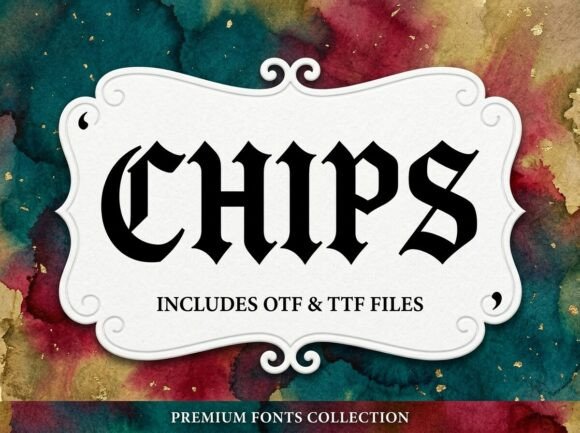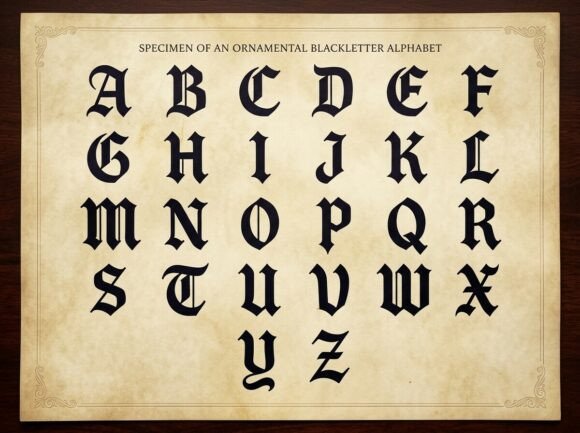
Place Your Bets on a Winning Design with Chips Font
In the world of typography, a good font can make all the difference in creating a lasting impression. For designers and crafters looking to add a touch of luxury and sophistication to their projects, Chips Font is a bold blackletter typeface that’s sure to deal a winning hand. With its unique blend of medieval flair and modern luxury gaming branding, Chips is the perfect choice for a variety of design applications.
The Characteristics of Chips Font
Chips Font boasts dense, high-contrast letterforms that exude a sense of confidence and drama. One of the standout features of this font is its rhythmic, diamond-shaped terminals, which add a touch of elegance and refinement to any design. The sharp, angular strokes bridge the gap between medieval calligraphy and modern luxury gaming branding, creating a truly unique and eye-catching visual identity.
A Font with a Strong Personality
Chips Font has a heavy structural weight that commands attention and demands to be noticed. Its commanding personality makes it the perfect choice for designers looking to create a bold and impactful design. Whether you’re working on an independent craft brewery identity, a boutique casino-themed logo, or a vintage streetwear label, Chips Font is sure to make a lasting impression.
Design Applications for Chips Font
So, what can you use Chips Font for? The possibilities are endless, but here are a few ideas to get you started:
- Independent Craft Brewery Identities: Chips Font is a great choice for craft breweries looking to create a unique and memorable brand identity. Its bold, attention-grabbing design is sure to stand out on labels, packaging, and marketing materials.
- Boutique Casino-Themed Logos: For casinos and gaming companies looking to create a luxurious and sophisticated brand image, Chips Font is a top contender. Its high-contrast letterforms and diamond-shaped terminals evoke the glamour and excitement of high-stakes gaming.
- Vintage Streetwear Labels: Chips Font’s bold, angular design makes it a great fit for vintage streetwear labels and fashion brands. Its unique blend of medieval and modern elements adds a touch of edginess and sophistication to any design.
- High-Impact Social Media Headers: Make a statement on social media with Chips Font’s commanding personality and bold design. Its heavy structural weight and high-contrast letterforms are sure to grab attention and drive engagement.
Why Choose Chips Font?
With so many fonts on the market, why choose Chips Font? Here are just a few reasons why designers and crafters are betting big on this bold blackletter typeface:
- Unique Design: Chips Font’s rhythmic, diamond-shaped terminals and sharp, angular strokes make it a truly one-of-a-kind design.
- High-Contrast Letterforms: The font’s high-contrast letterforms add a touch of elegance and sophistication to any design.
- Commanding Personality: Chips Font’s heavy structural weight and bold design make it a great choice for designers looking to create a lasting impression.
- Versatility: From craft brewery identities to boutique casino-themed logos, Chips Font is a versatile design that can be used in a variety of applications.
If you’re looking for a font that’s sure to deal a winning hand, look no further than Chips Font. With its unique blend of medieval flair and modern luxury gaming branding, Chips is the perfect choice for designers and crafters looking to add a touch of sophistication and elegance to their projects. Whether you’re working on a craft brewery identity, a boutique casino-themed logo, or a vintage streetwear label, Chips Font is sure to make a lasting impression.